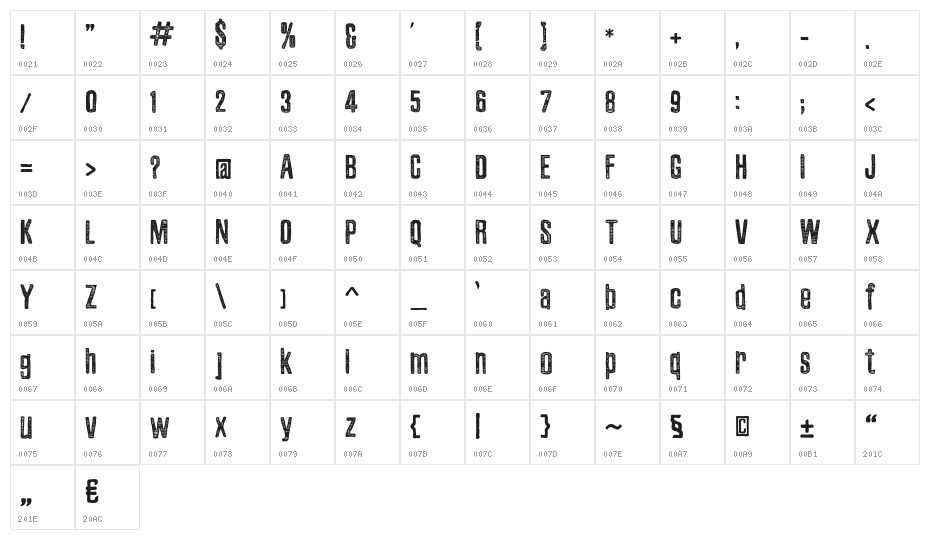
Zubajda Str Font
Zubajda Str Description
This font features a bold, distressed style with a textured appearance that gives it a rugged, vintage feel. The uppercase and lowercase letters are consistent in their rough, worn look, which adds character and a sense of history to the text. The numerals and special characters maintain this distressed aesthetic, making the font suitable for projects that require a touch of nostalgia or a handcrafted look. The overall design is bold and impactful, with each character displaying a unique pattern of distress that enhances its visual appeal.
| Use Case | Logos, Posters, Branding |
| Proposed Projects | Ideal for vintage-themed posters, logos, and branding materials that require a rugged, handcrafted look. |